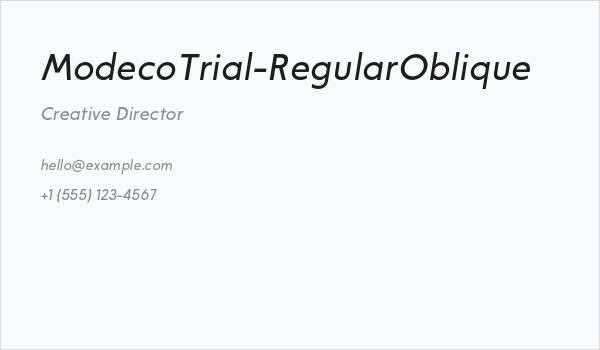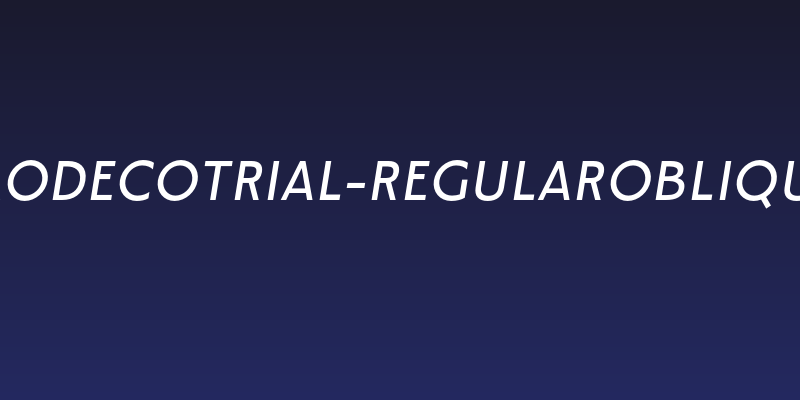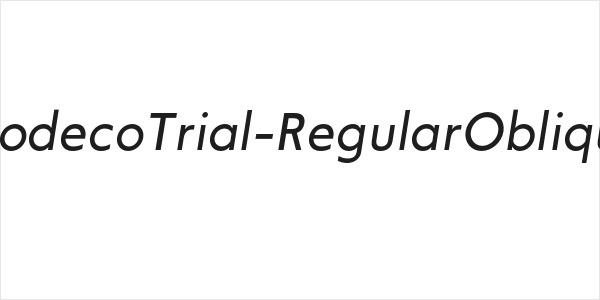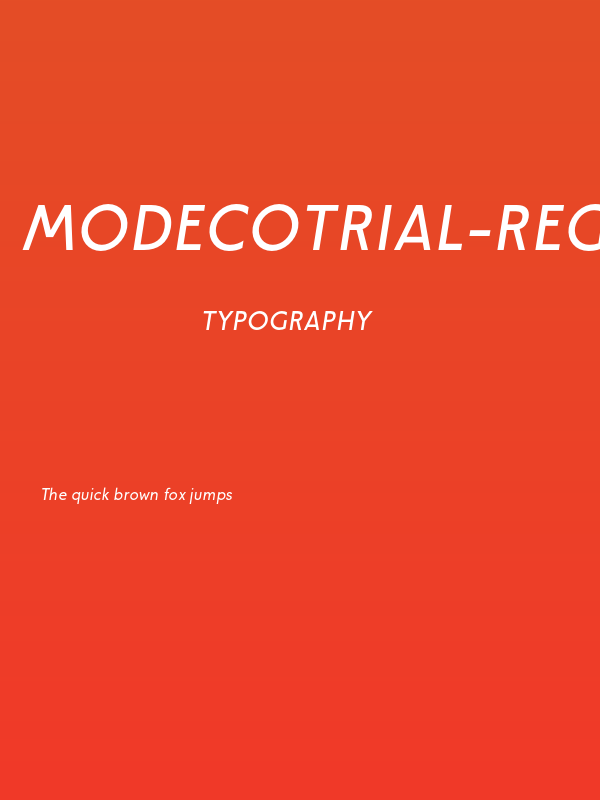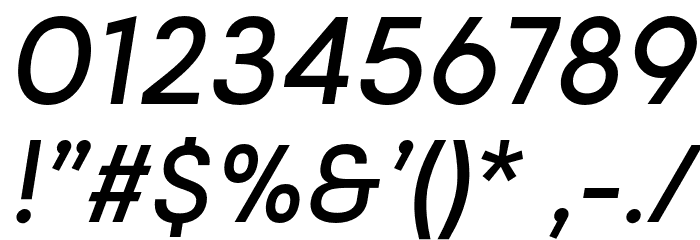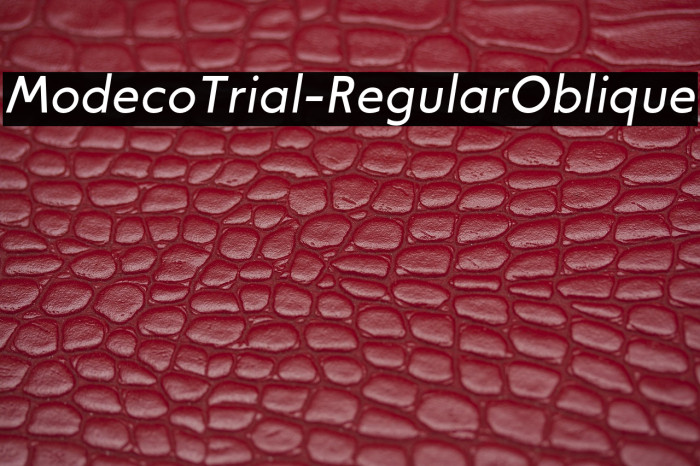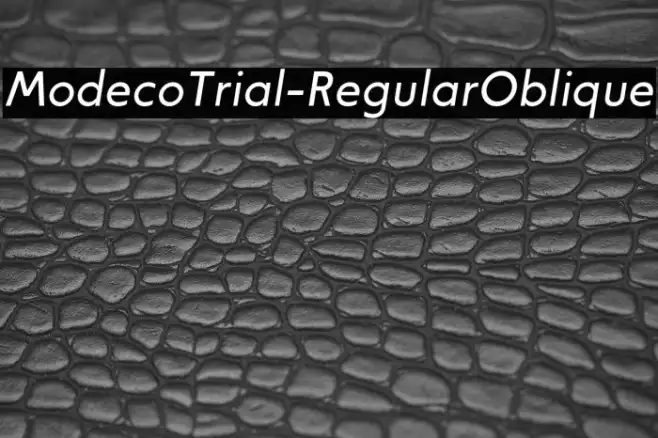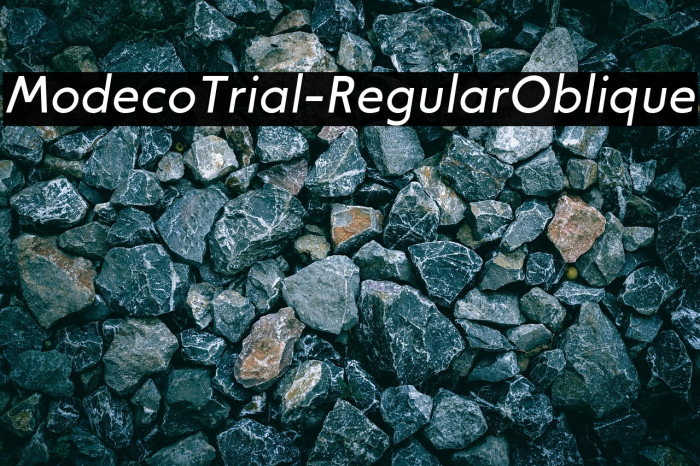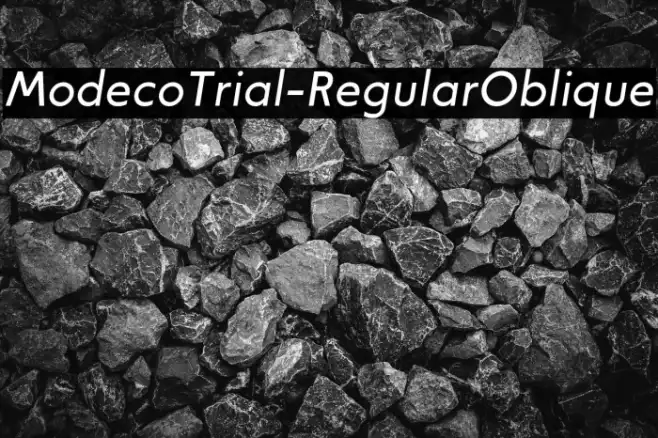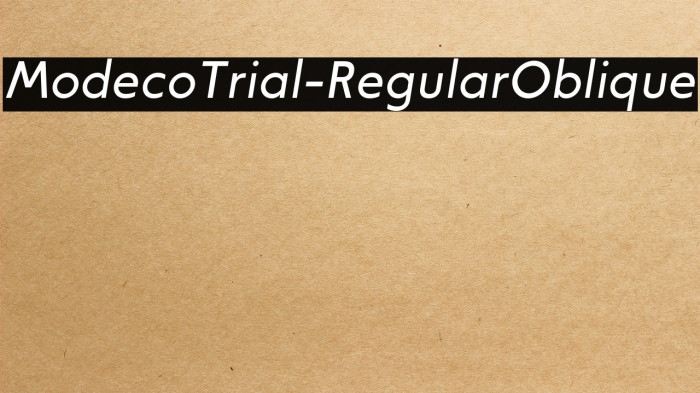
ModecoTrial-RegularOblique Font
ModecoTrial-RegularOblique Description
This font features a sleek and modern design with a slight oblique slant, giving it a dynamic and forward-moving appearance. The characters are clean and sans-serif, providing a contemporary look that is both professional and approachable. The uppercase and lowercase letters maintain a consistent style, with smooth curves and straight lines that enhance readability. The numerals are well-proportioned, and the special characters are distinct, making this font versatile for various applications. Its overall aesthetic is minimalistic yet stylish, suitable for modern digital and print media.